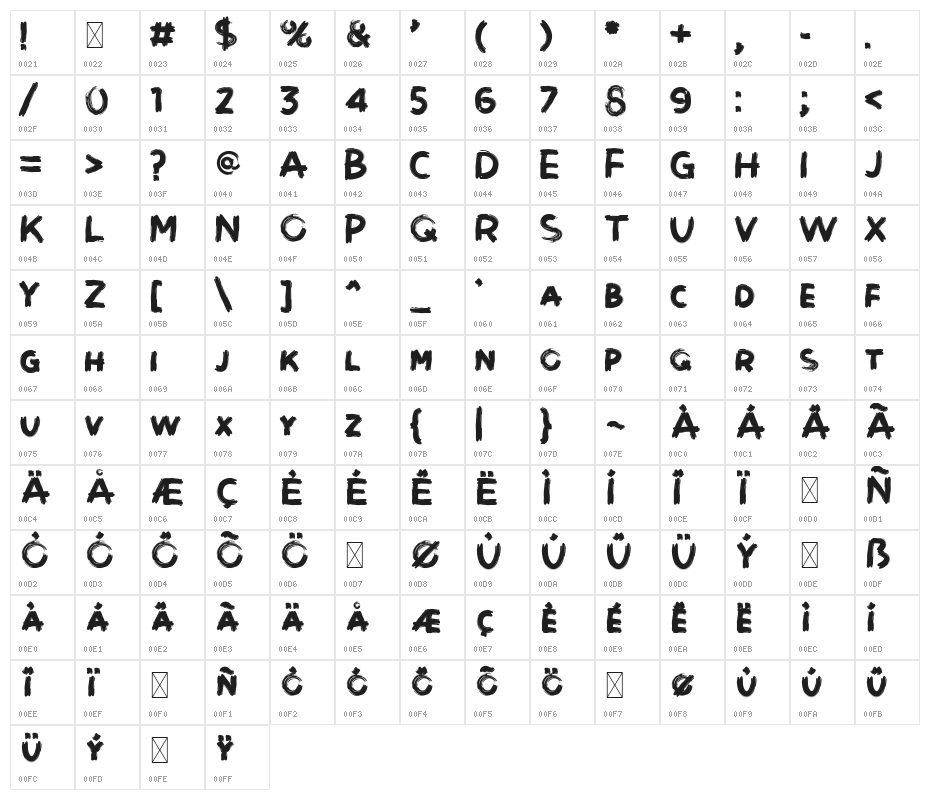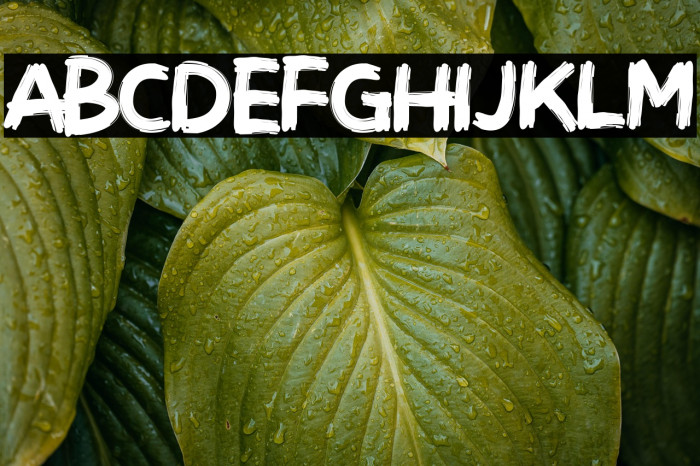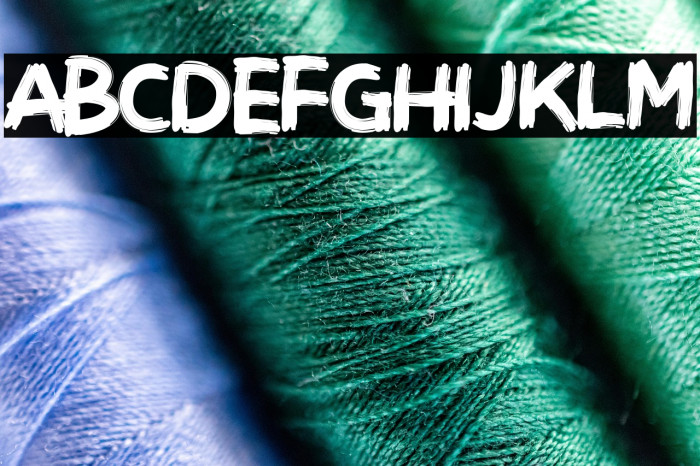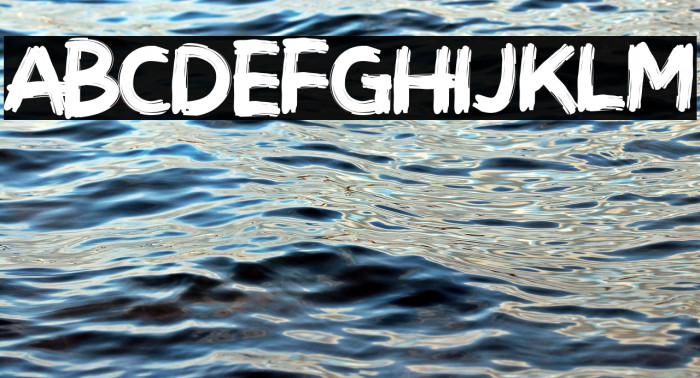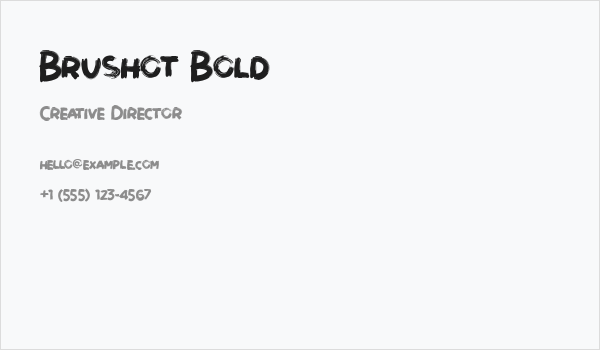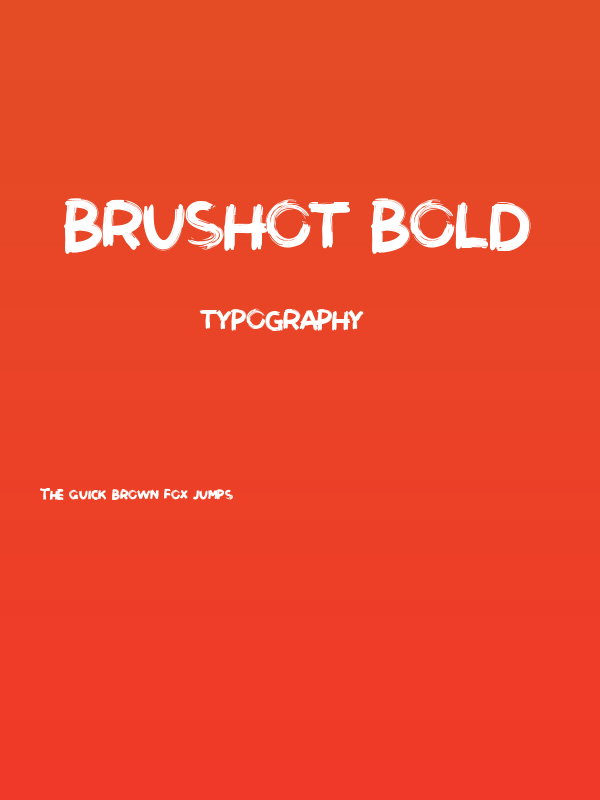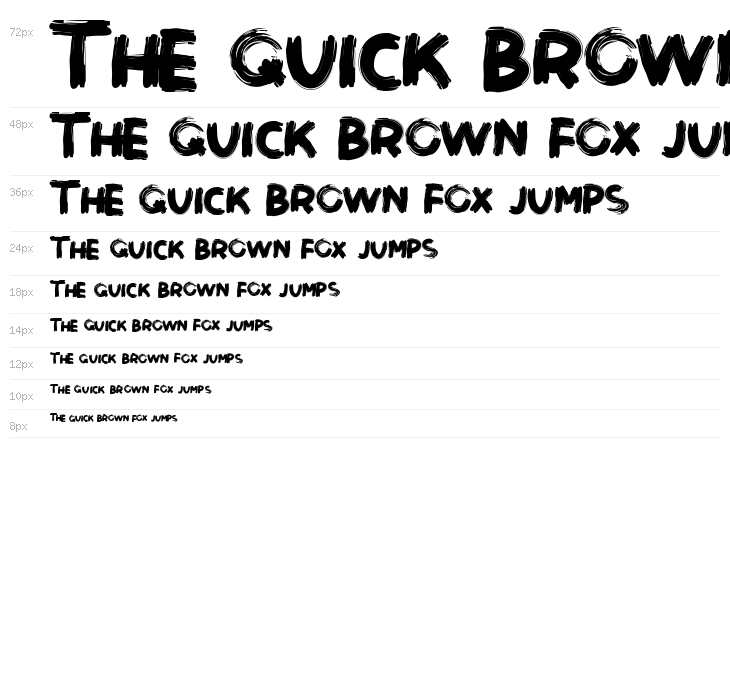
Brushot Bold Font
Brushot Bold Description
This font features a bold, brushstroke style that exudes energy and dynamism. The characters are crafted with a hand-painted appearance, giving them a raw and artistic feel. Each letter has a unique texture, with varying thicknesses that mimic the natural flow of a brush. The uppercase and lowercase letters maintain a consistent style, while the numbers and special characters integrate seamlessly with the overall design. This font is perfect for projects that require a bold statement and a touch of creativity.
| Overall Style | Modern, Artistic |
| Proposed Projects | Ideal for posters, artistic branding, event invitations, and creative advertising. |